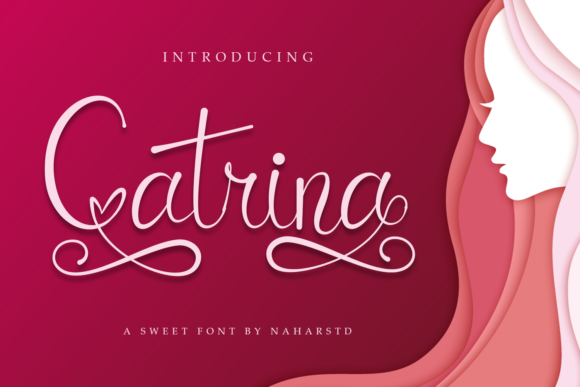
Discover the Magic of Catrina Script Font
Have you ever found yourself pouring over a design project, trying to find the perfect font to capture the essence of your vision? For many of us, that moment comes when we’re working on a special craft or card, and we need a font that speaks directly to the heart. It’s in these moments that we stumble upon fonts like Catrina Script, which become the perfect match for our creative endeavors.
Catrina Script Font is a beautiful, flowing script font that adds a touch of romance to any project. With its elegant curves and soft lines, it’s the perfect choice for designers looking to add a whimsical touch to their designs. Whether you’re working on a wedding invitation, a birthday card, or a handmade journal, Catrina Script Font is sure to bring a sense of sophistication and elegance to your work.
Catrina Script Font Key Features
- Font Family: Catrina Script Font
- Unique Characteristics: Hand-drawn script font with elegant, cursive design; ideal for wedding invitations, greeting cards, and other decorative purposes
Catrina Script Font Review
I recently had the chance to work with the Catrina Script font, and I have to say it’s a beautiful script font with a lot of character. ✨ The flowing lines and elegant curves make it perfect for adding a touch of sophistication to any design project.
One of the things I love about Catrina Script is its versatility. ✨ It works well for both digital and print projects, and the subtle texture adds a unique touch that sets it apart from other script fonts. It’s also highly legible, making it perfect for body text or headlines.
- ⚠️ The font is quite ornate, which can make it difficult to read in certain contexts (e.g. small font sizes or low-resolution screens).
- ⚠️ The font family is relatively small, which can limit its use in projects that require multiple font weights or styles.
Overall, I’m really impressed with the Catrina Script font. It’s a beautiful addition to any designer’s toolkit, and I can see it being used in everything from wedding invitations to branding projects. If you’re looking for a high-end script font that’s sure to make an impact, I’d definitely recommend giving Catrina Script a try.
The Catrina Script Font is perfect for:
– Creating elegant wedding invitations.
– Designing beautiful quotes and posters.
– Adding a touch of elegance to your social media graphics.
Remember to use the font in a way that complements the design, and don’t be afraid to experiment with different font sizes and styles to achieve the desired effect.
Alternatives to Catrina Script Font for Designers
Great Vibes Font is a beautiful, elegant script font that is perfect for wedding invitations, greeting cards, and other romantic designs. It features a flowing, cursive style with swashes and flourishes, making it ideal for adding a touch of sophistication and whimsy to your designs.
Comparison to Catrina Script Font: While both fonts have a similar script style, Great Vibes Font is more elegant and refined, making it suitable for more formal designs. Catrina Script Font has a more playful, vintage vibe, while Great Vibes Font is more modern and sophisticated.
Pacifico Font is a modern script font that is perfect for creating a relaxed, beachy vibe in your designs. It features a clean, elegant style with a touch of playfulness, making it ideal for designs related to travel, food, and entertainment.
Comparison to Catrina Script Font: While both fonts have a similar relaxed vibe, Pacifico Font is more modern and clean, while Catrina Script Font has a more vintage and eclectic feel.
Carolyna Pro Font is a beautiful, elegant script font that is perfect for creating a luxurious and sophisticated vibe in your designs. It features a flowing, cursive style with swashes and flourishes, making it ideal for designs related to fashion, beauty, and luxury.
Comparison to Catrina Script Font: While both fonts have a similar elegant style, Carolyna Pro Font is more refined and sophisticated, while Catrina Script Font has a more playful and whimsical feel.